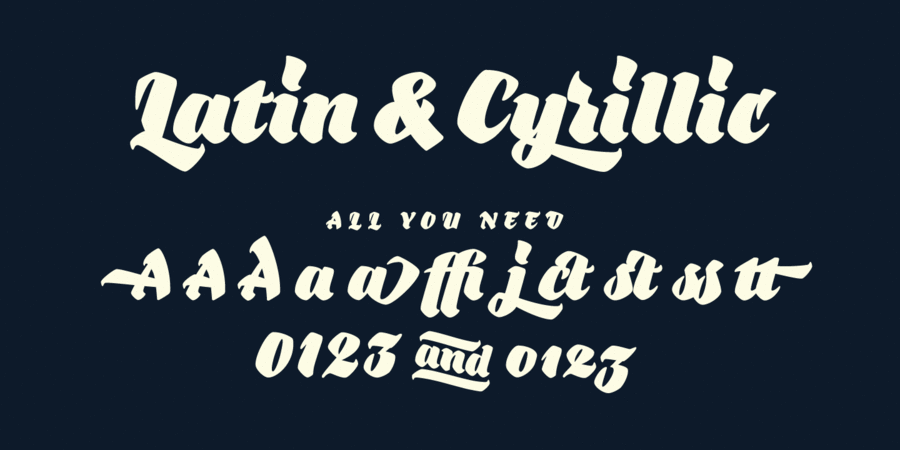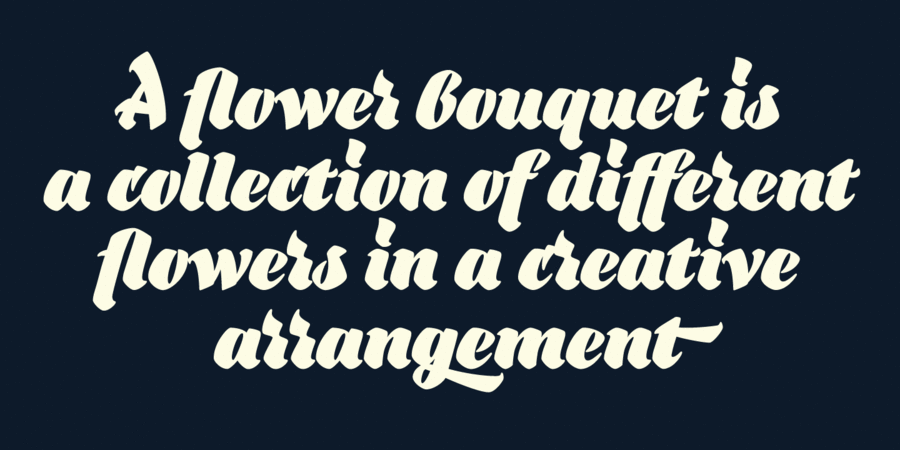
About BouquetBouquet font is a cursive fat typeface influenced by brush writing and skilfully flavored with elements of fractura. The result is really amazing – a font with bespoke personality, strong unique presence and classy standing out amongst the other look. Type designer Dzianis Serabrakou really did well in every single letterform, aperture, curve and line, but this was probably below satisfactory and he didn’t stop here – Denis developed the font to a higher level by making it fully open-type compatible. Bouquet supports large set of multilingual diacritics plus a beautifully designed set of Cyrillic characters. Additionally you will be able to use also ligatures and really lots of alternative symbols to bring more life, versatility and personalization in your work. Initially Bouquet has been designed as a logo font – it is so identical that could easily turn every brand name into logo icon. Furthermore this font is perfect for designing t-shirts, typographic posters, packaging etc and it is highly recommended for letterpress as well as for normal offset and screen printing. The typeface was designed by Denis Serebryakov in 2014.
Features of font family BouquetThe hit of the decade:
Associations for font family BouquetTypeface personality and character:
dashing, delicious, alive, dynamic, kind, man-made, handicraft, glad, honest, generous, fresh, positive, green, smooth, manual, heavy, fat, close-fitting, strong, notable, splashy, black, daring, bright, active, home, peppy, fast, convincing, loud, self-assured, important, Soft, hardworking, spectacular, motivating, resolute, expressing, expressive, rhythmic, hipster, confidence, warm, lamp, appetizing, flexible, affable, beautiful, distinctive, orderly, festive, juicy, ripe, craft brewed, summer, pleasant, paunchy, original, lush, cozy, sweet, happy, berry, fruit, New Year, agile, luxurious, fashionable, high-quality, cultural, select, noble, elite, expensive, masterful, aesthetically beautiful, artistic, famous, rich, modern, urban, plastic, feminine, sexy, polite, family, precious, romantic, Glamorous, dramatic, glossy, brilliant, passionate, sensual, extravagant, pretentious, persistent, ambitious, freewheeling